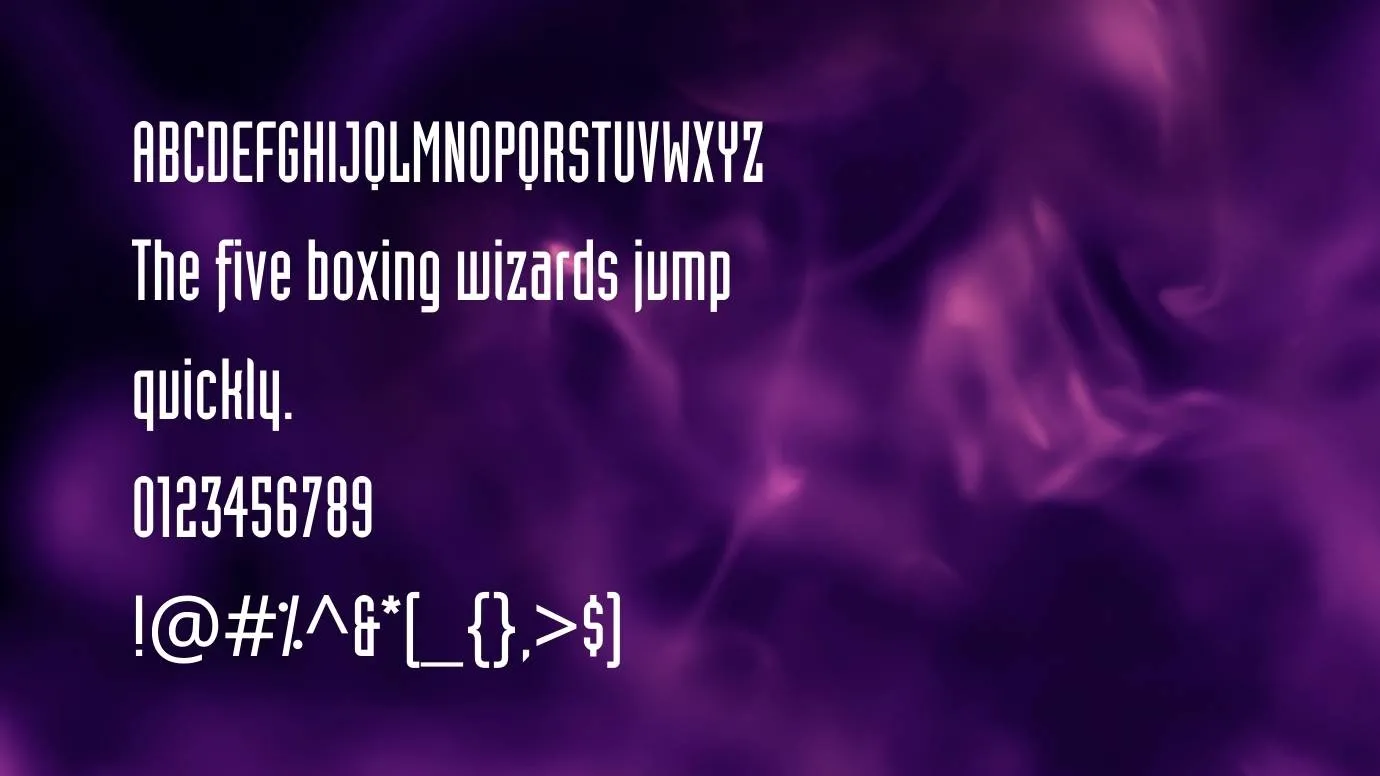
Industria Font is crafted for use as body text in magazines. It has been meticulously designed to have an elegant and easily readable appearance that works well on both small and large screens. This font belongs to the Sans-Serif font family and was originally created for the well-known magazine, The Face. This fashion and music magazine was initially launched in 1984, ceased publication in 2004, and was later relaunched in 2014. The distinctive font used in this magazine’s design gained popularity and has since been sought after by various companies and designers worldwide.
This font style has been used in very amazing platforms like it has been used in the logo of NBA’s Oklahoma City Thunder. This typeface has also been utilized in the logo of a famous video game named Siphon Filter. Many other companies like Red Bull GmbH use this font in their logos. This typeface can easily be utilized in Graphic design. This font style can be seen in amazing platforms like Adobe, Canva, and Microsoft Word.
This font also has some similar fonts. But we have searched that Lakers and Utopia font has the most similarities with this font. So, you can use this font as an alternative to these fonts. Homeware designs, Posters, Book covers, Business cards, Greeting Cards, Banners, Brochure layouts, Website and Blog themes, Templates, as well as Branding projects, Printing chores, Product packagings, Social media postings, Advertisements, and more can all benefit from it.
Designer of Industria Font
This elegant and attractive texture style has been designed by Neville Brody. He is a well-reputed graphic and font maker. He has also designed a number of fonts that are used in a number of designs and projects.
This font texture is constructed with four styles Pro Solid, Pro Inline, Std Solid, and Std Inline. Each style of this family is comprised of capital letters, small letters, glyphs, punctuations, numbers, symbols, special characters, and many languages support.
| Name | Industria Font |
| Designer | Neville Brody |
| Foundry | Mergenthaler Linotype Company |
What font is Industria font?
This font is a member of the Sans-Serif font family. This font is specially designed to be utilized in the famous magazine “The Face”.
Who designed Industria Font?
This elegant and attractive texture style has been designed by Neville Brody. He is a well-reputed graphic and font maker.
What font is closest to Industria Font?
There are also some fonts that are similar to this font style. But we have searched that Lakers font and Alex Brush Font are the most similar to this font style.
Can I use Industria Font for my logo?
This font style has a stylish and elegant texture appearance. Many companies have used this font for their logos. So, yes you can use this font for your logo.
Is Industria Font Worth Using?
This typeface has been used by many organizations and designers. So, yes this typeface is worth using.